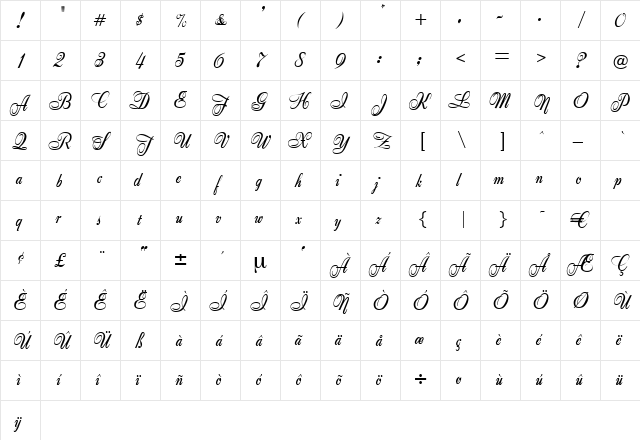
Anette Regular
Design Context for Anette Typeface
Anette is a composed and adaptable typeface that performs quietly and consistently across a wide range of design contexts.